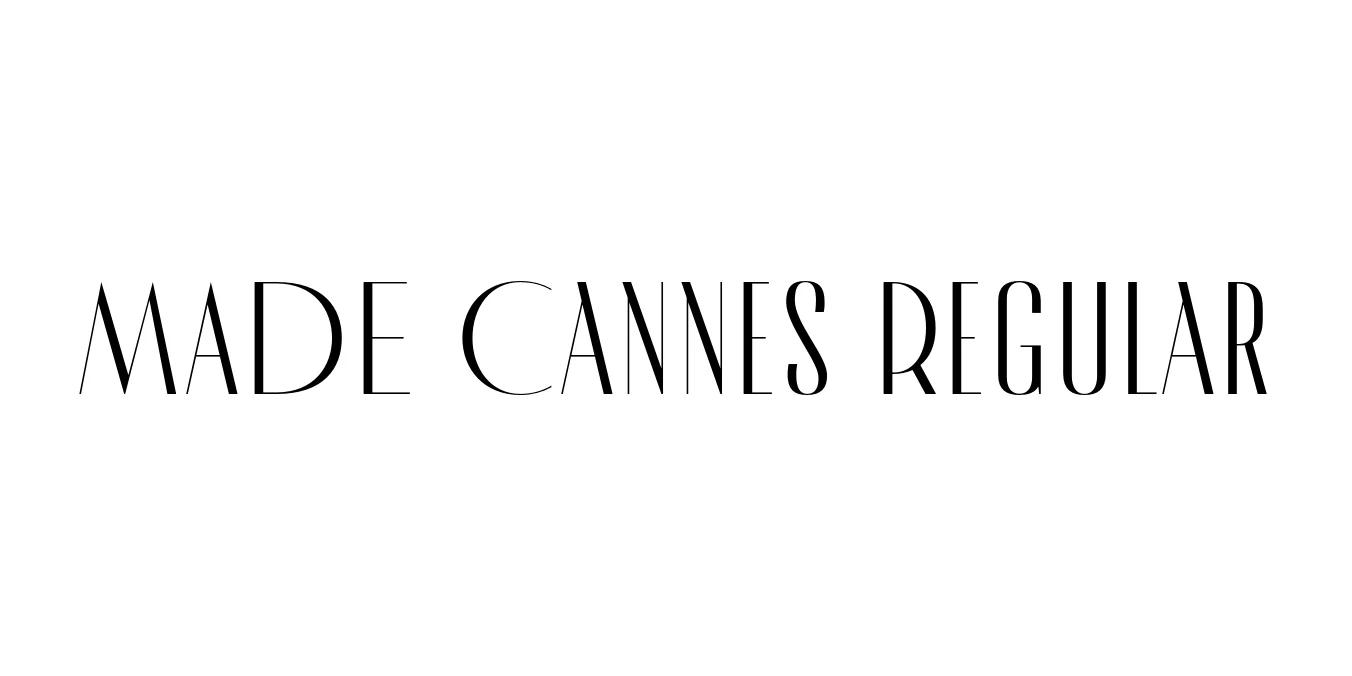
MADE Cannes Regular
Designed by MadeType
MADE Cannes Regular is a sophisticated and modern sans-serif font family crafted by the renowned design studio MadeType. Inspired by the glamour of high-fashion and luxury lifestyle magazines, this typeface exudes elegance through its clean lines and high-contrast geometric forms. It was specifically designed to provide a high-end aesthetic that works beautifully in both minimalist and complex design environments, bridging the gap between classic typography and contemporary chic.
The Regular weight offers a perfect balance of readability and stylistic flair, making it a go-to choice for editorial layouts, magazine covers, and upscale branding projects. Its unique character shapes and refined curves ensure that any design featuring MADE Cannes Regular carries a sense of timeless glamour and professional polish, whether used in large-scale print or digital media displays.
MADE Cannes Regular Best Uses
Perfect for high-end magazine spreads, covers, and layout headers.
Ideal for luxury logo designs, fashion labels, and premium corporate identities.
Excellent for minimalist and aesthetic Instagram posts or Pinterest graphics.
Striking for sophisticated website banners and stylish navigational elements.